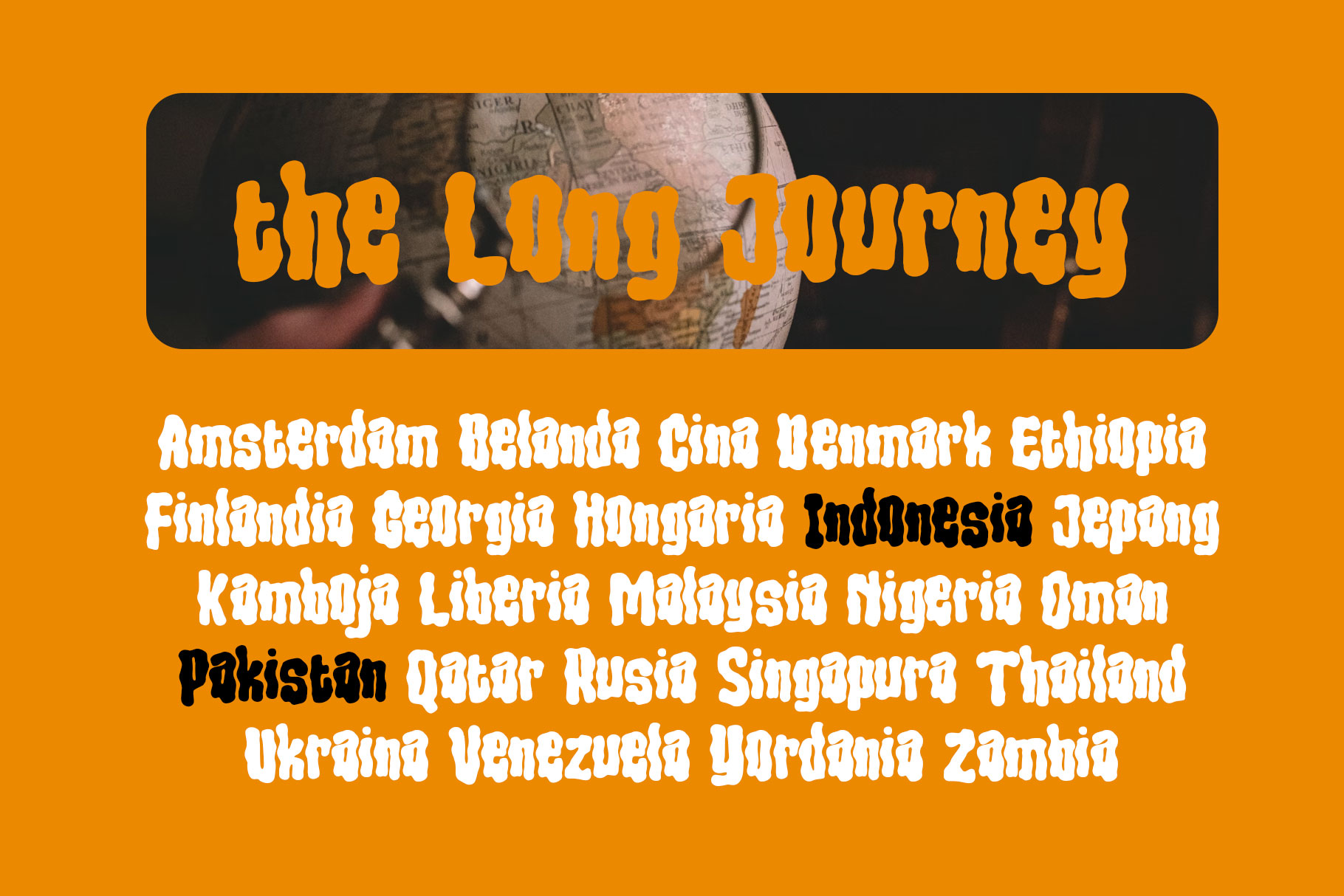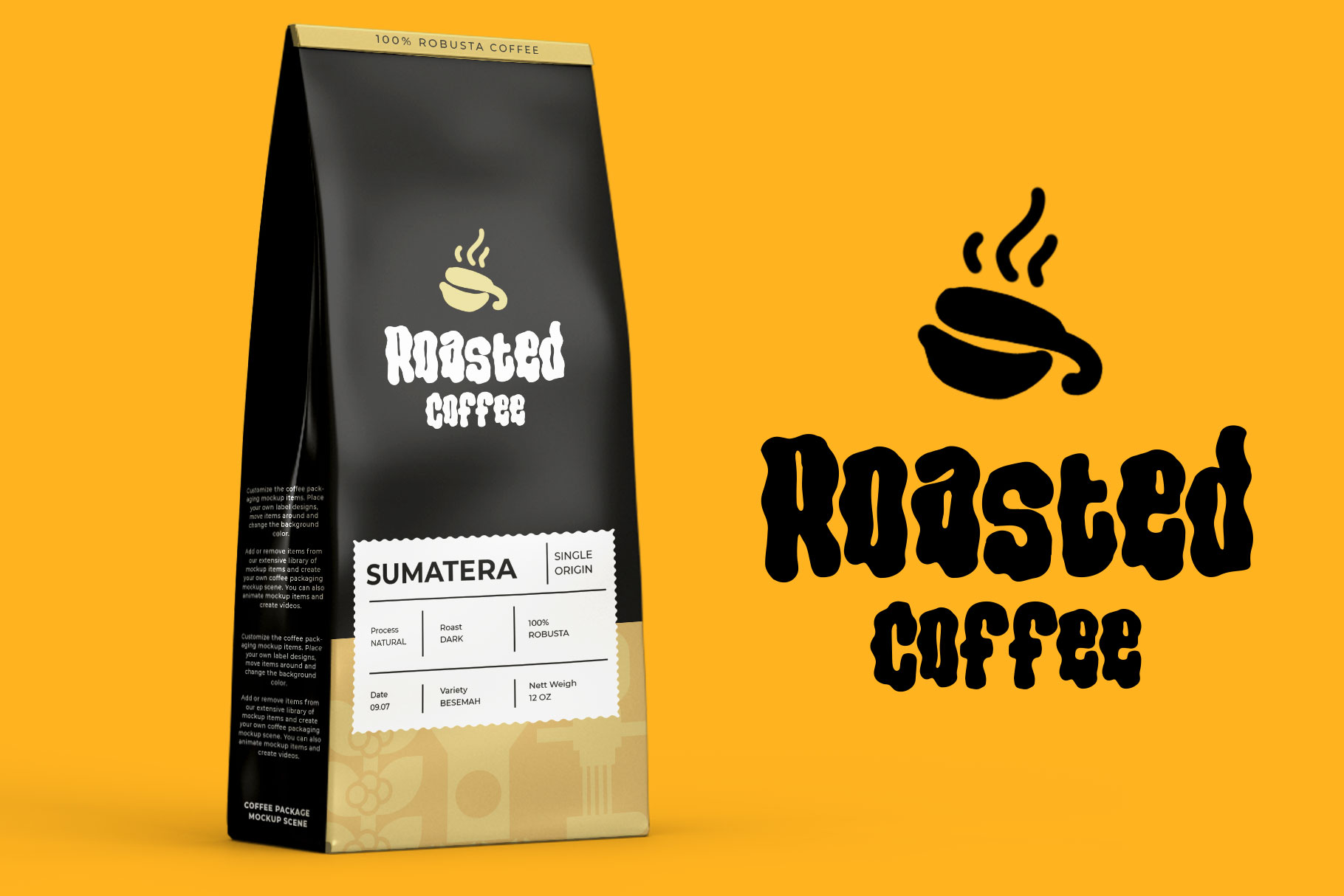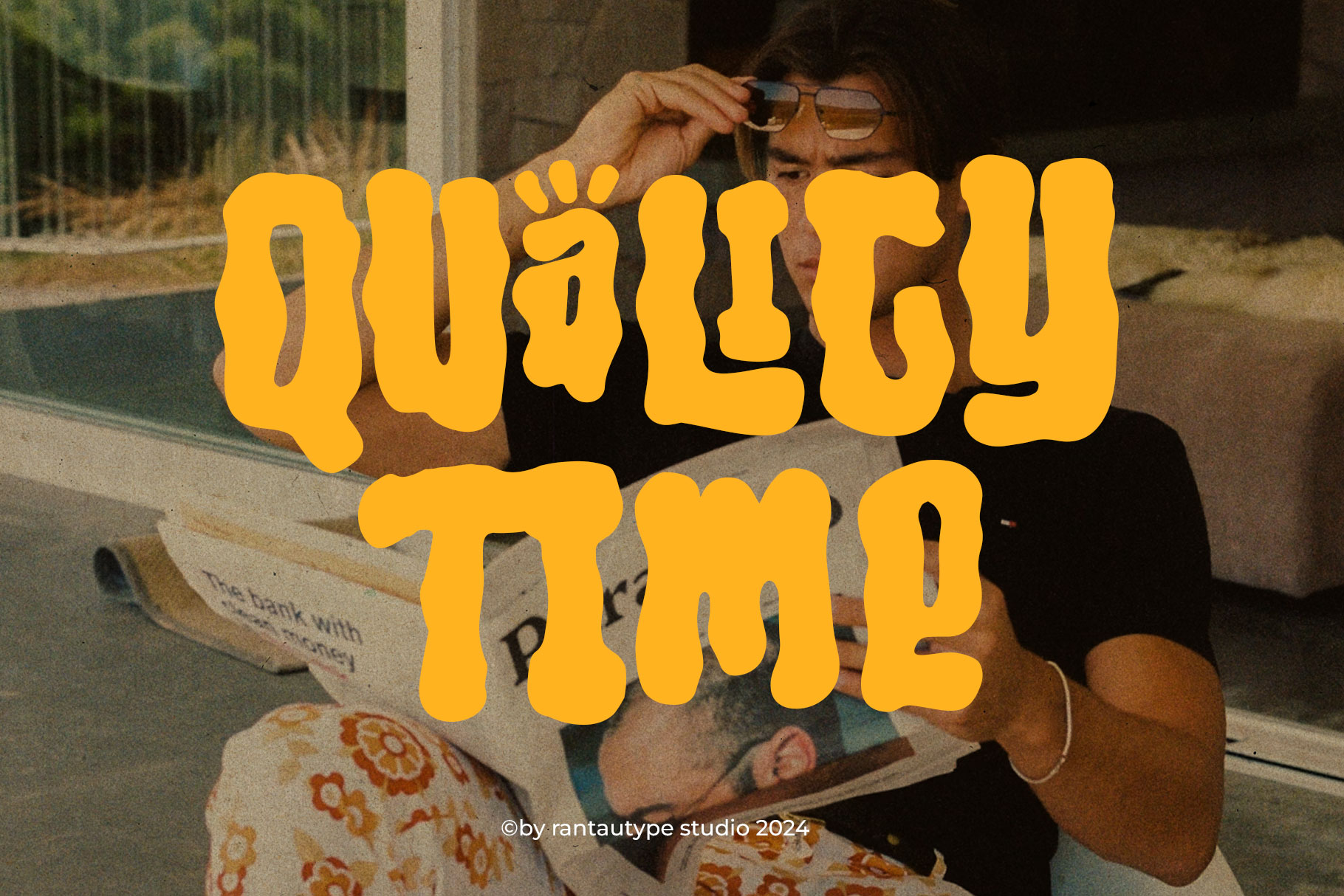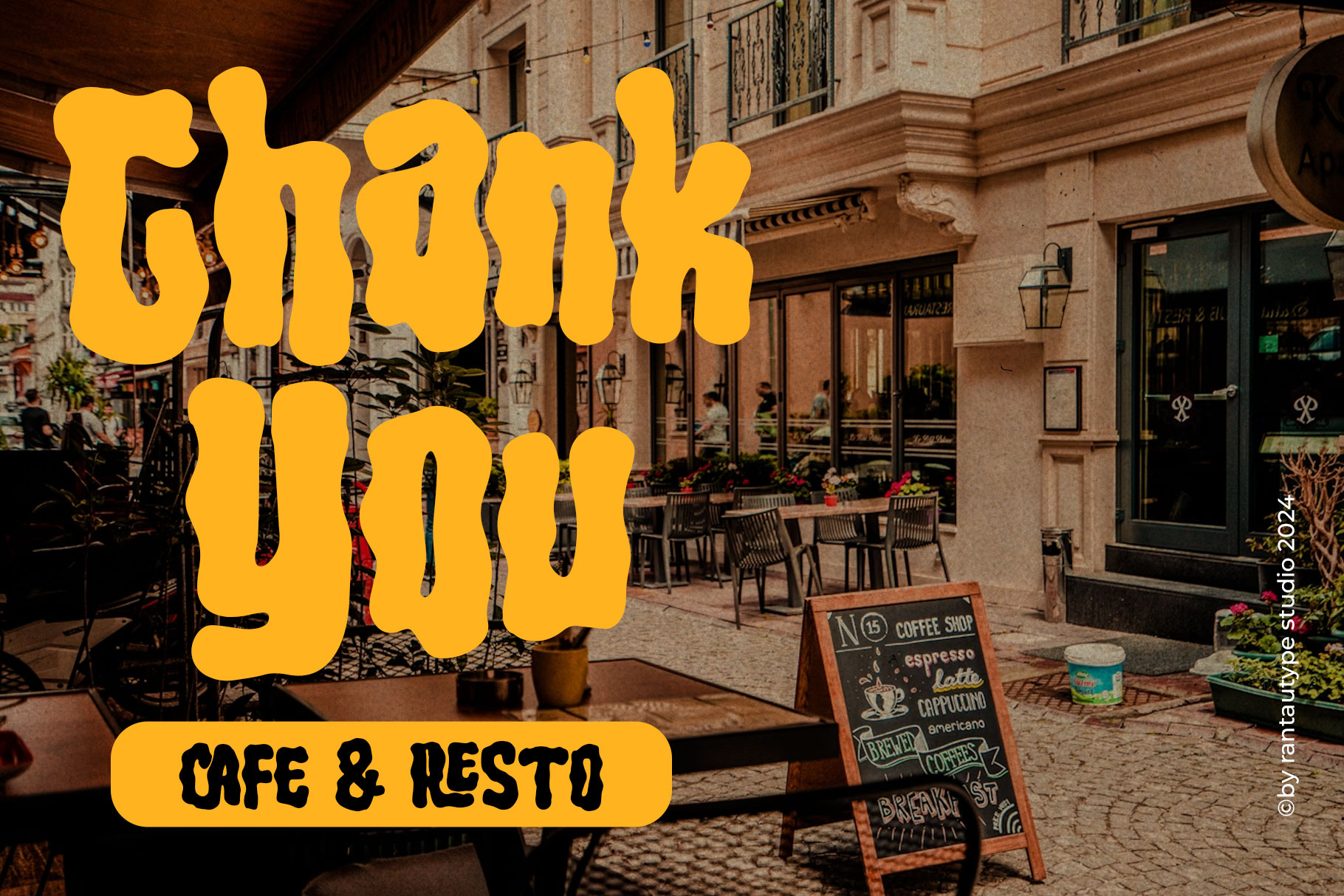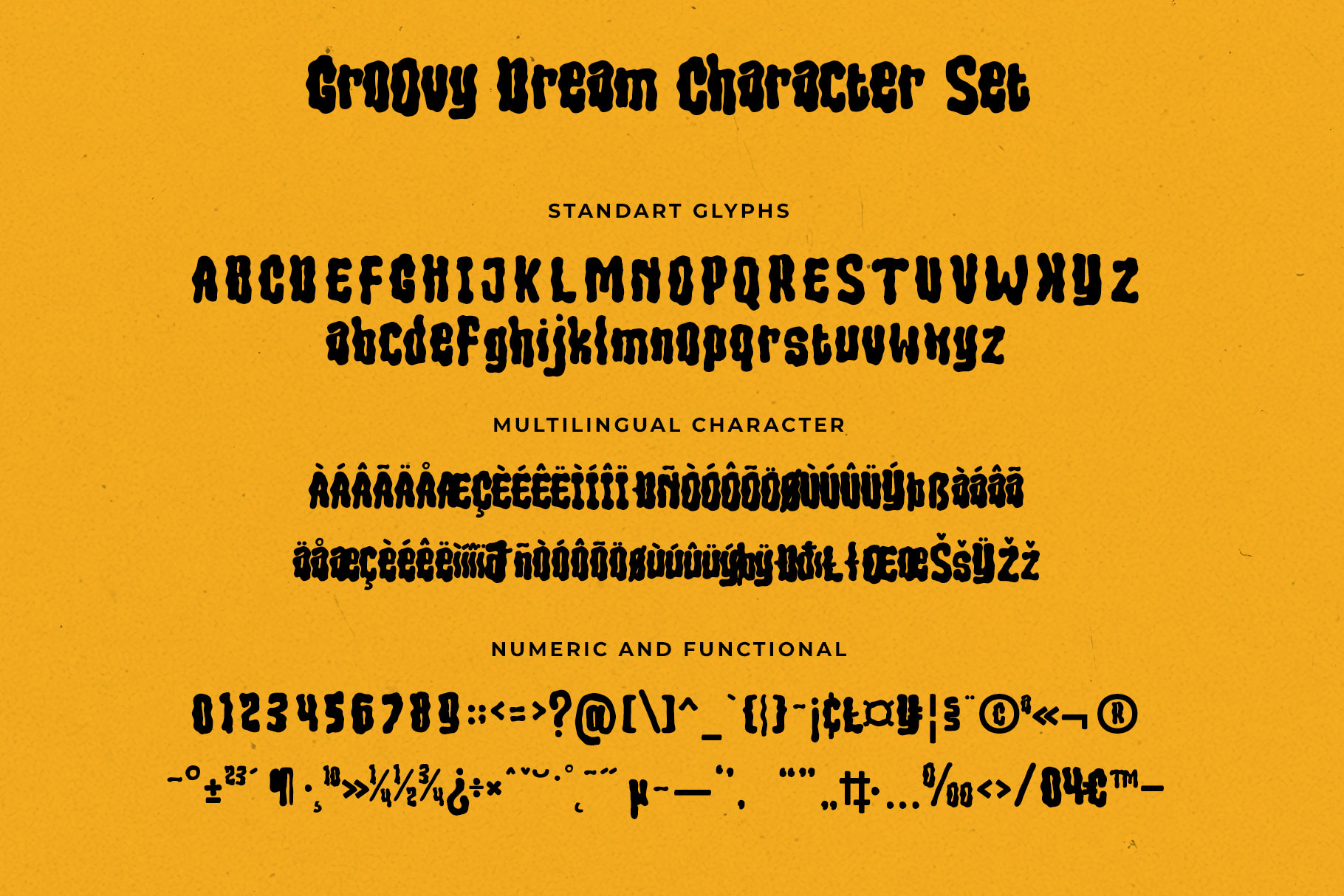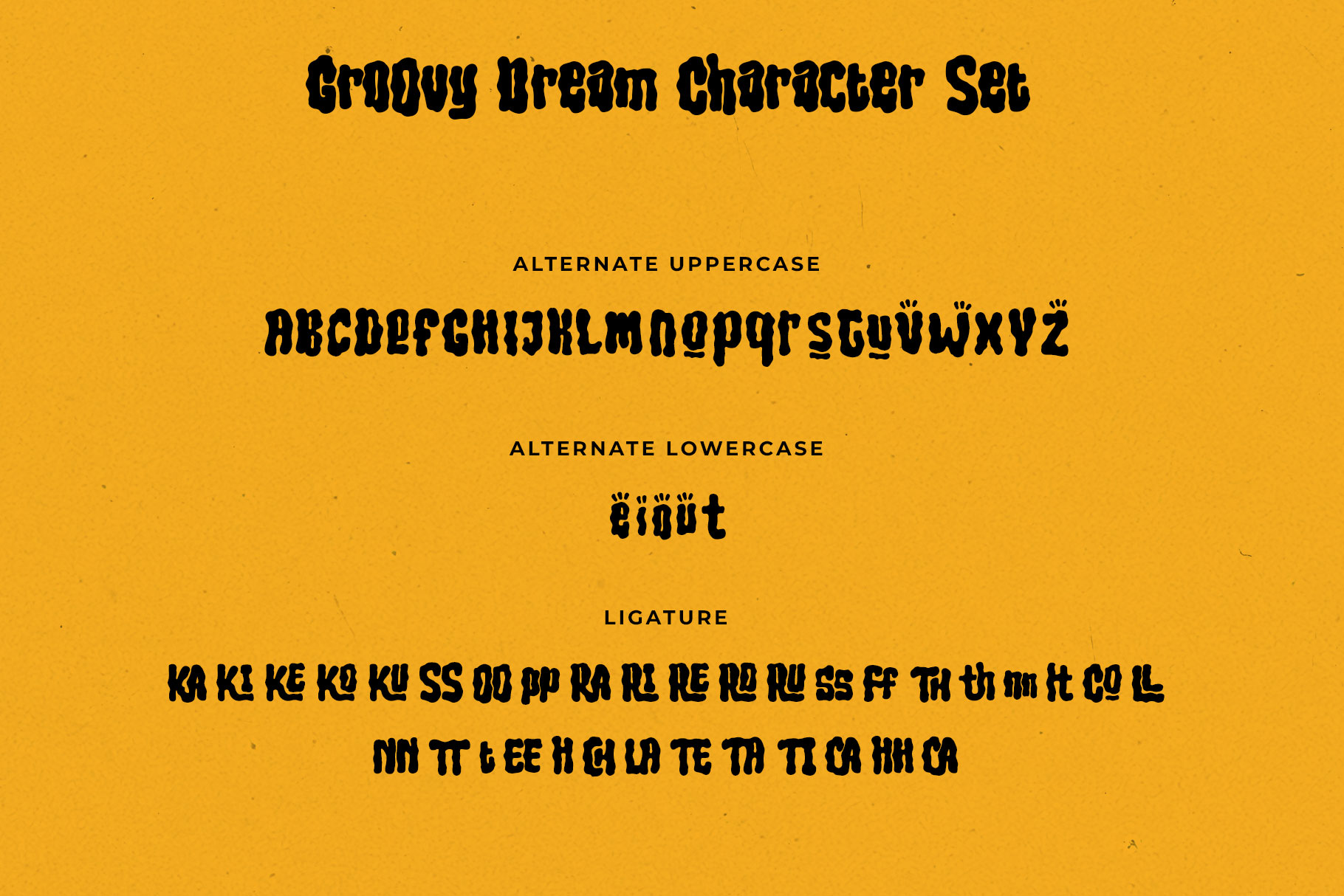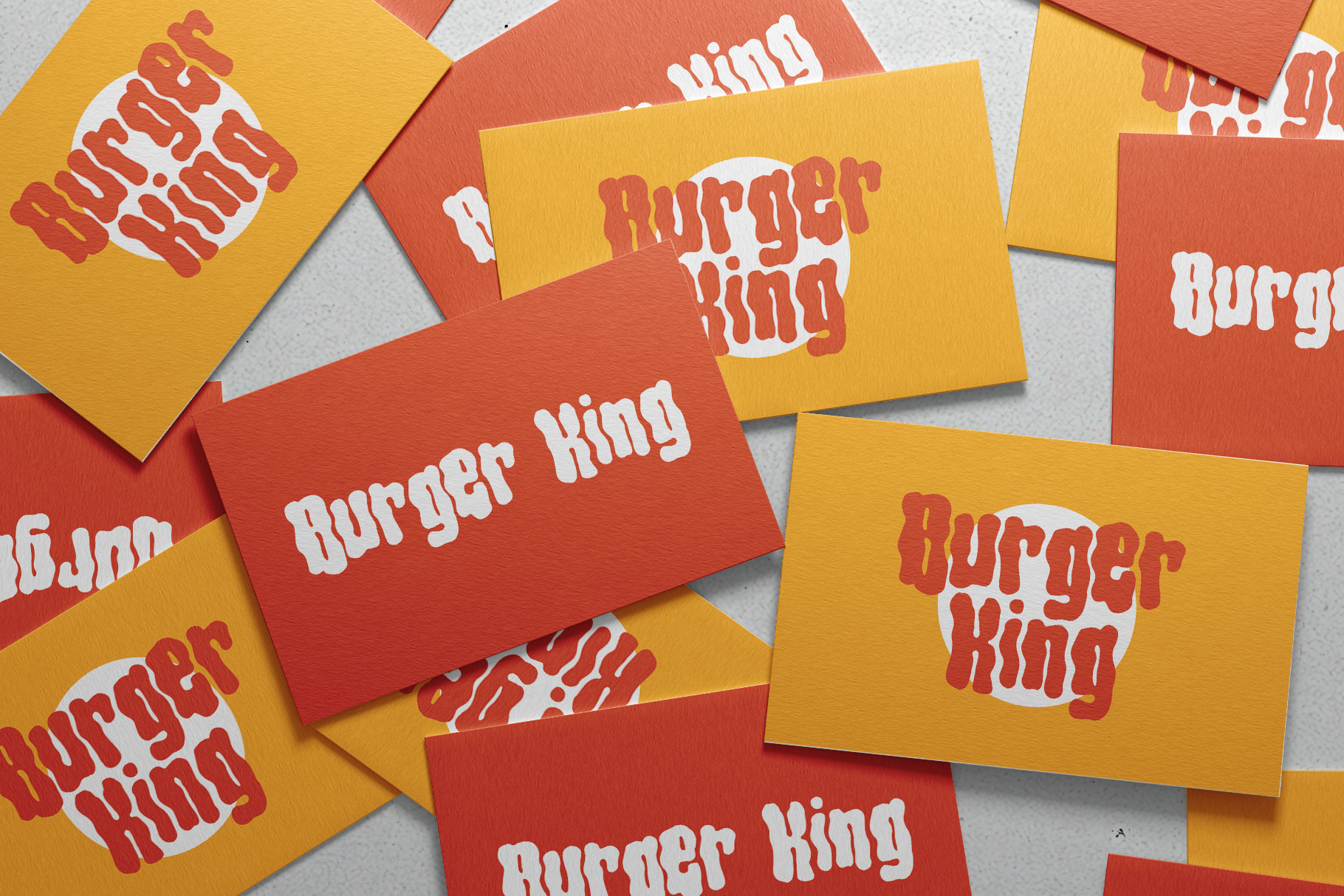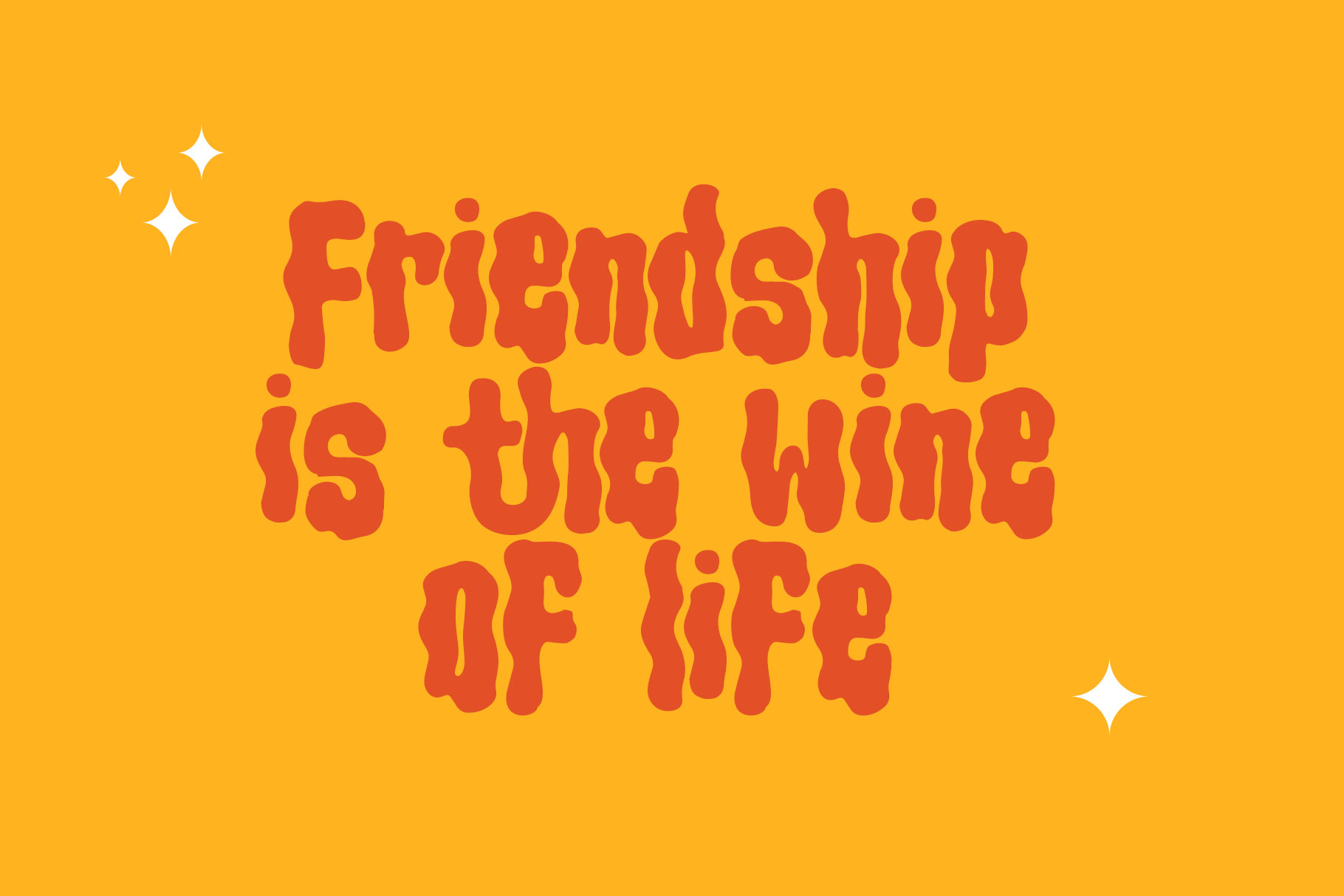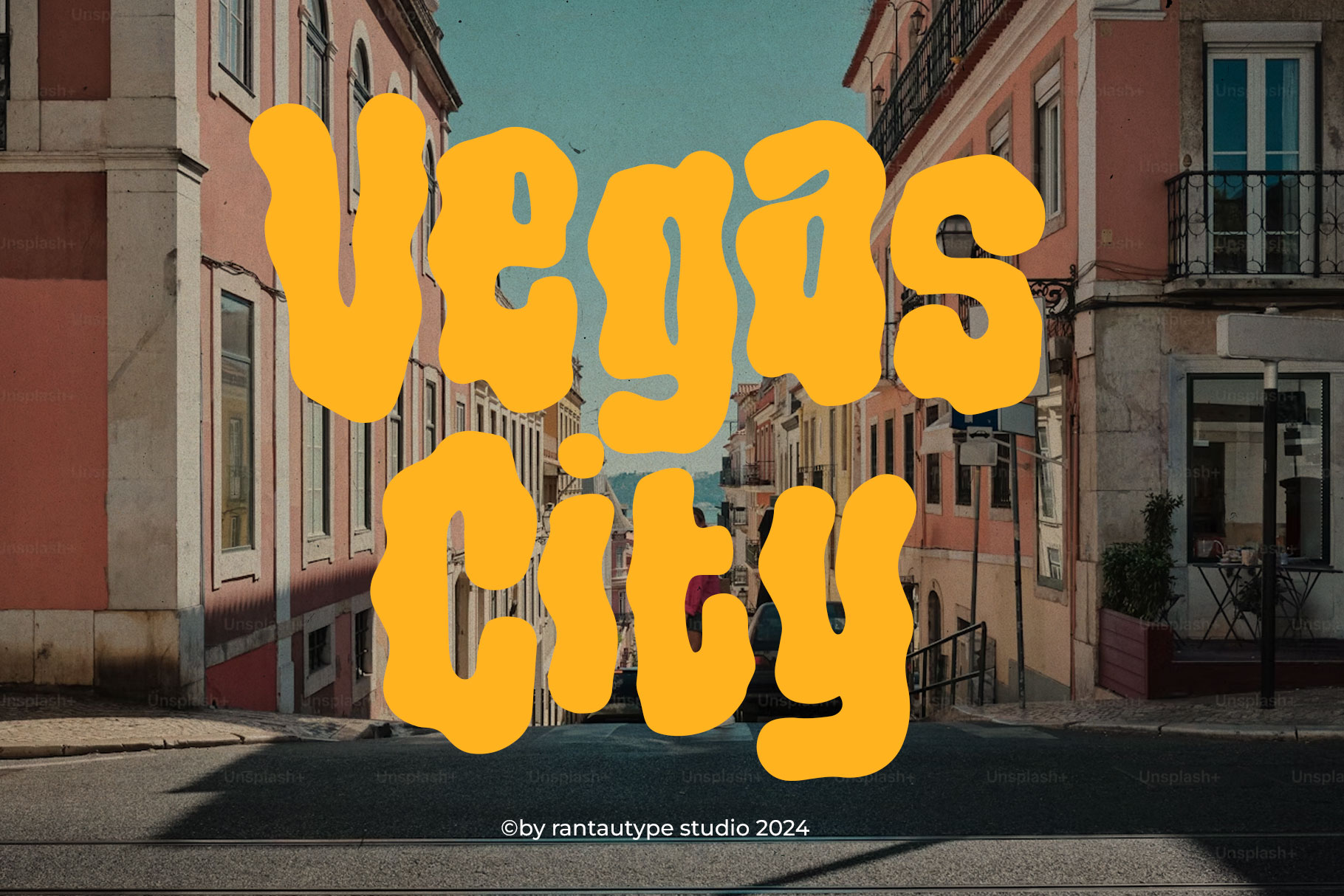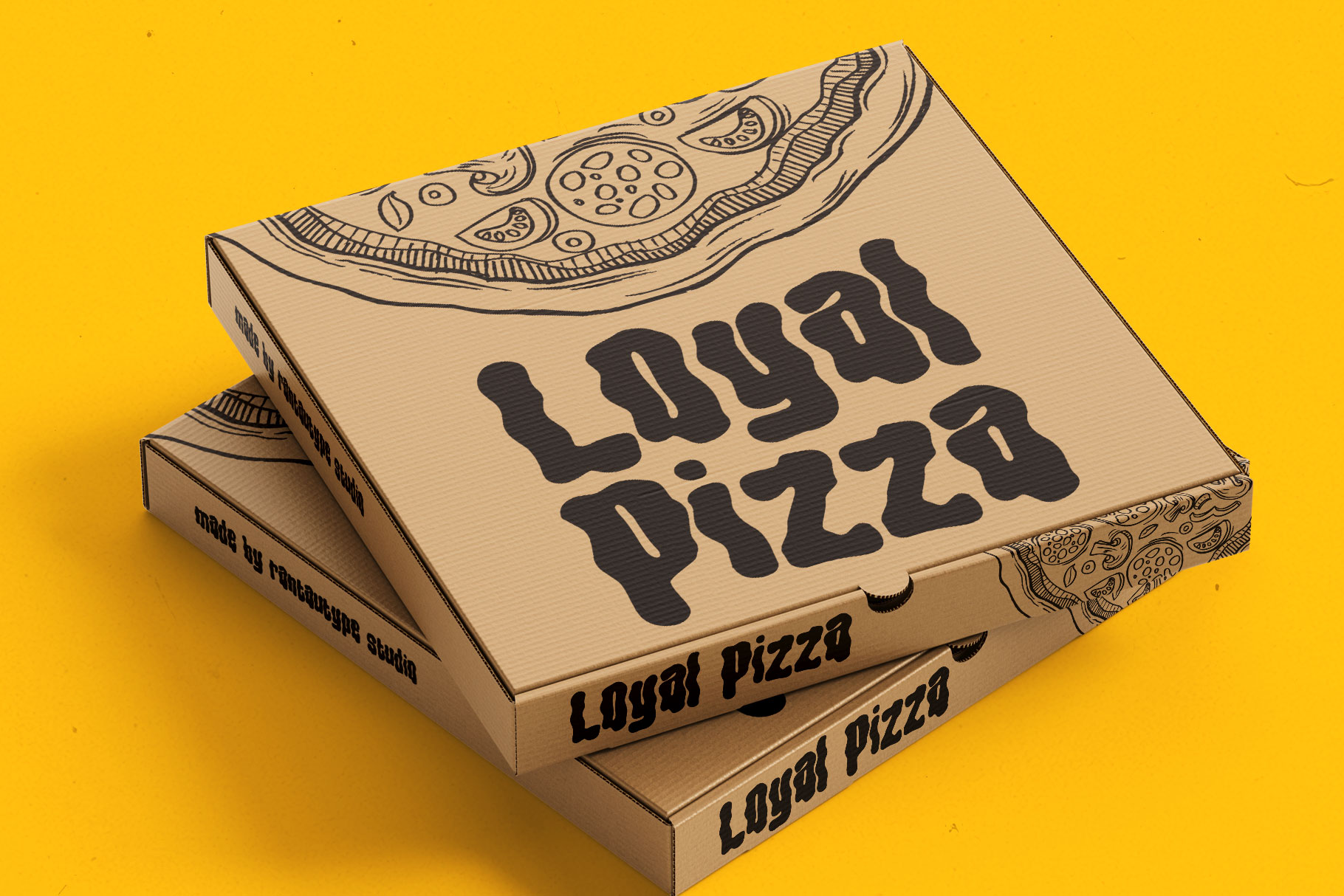
Groovy Dream Display Typeface
Groovy dream is playfully nostalgic typeface with unique and sinuous shape. Groovy dream bring vintage fun retro to become favorite designed, this font has the potential to bring each of your creative ideas to the highest level!
Groovy dream is perfectly choice for any creative endeavor, such as logos, title, watermark on photography, cover, branding, display and magazine, wedding event, corporate brand, quotes, album cover, business card, business project and many other design project with playful taste.